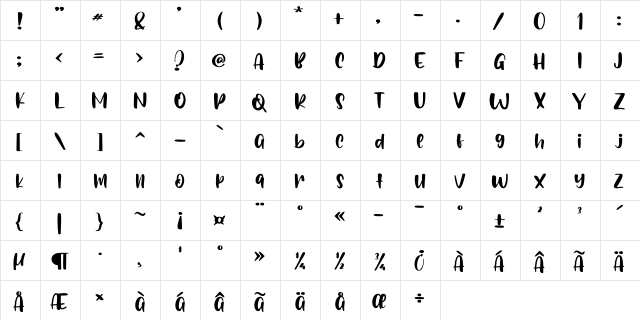
Big Stomach Regular
| Designer | Sarwo Edhi Prayitno |
Design Context for Big Stomach Typeface
Big Stomach is a composed and adaptable typeface that performs quietly and consistently across a wide range of design contexts.